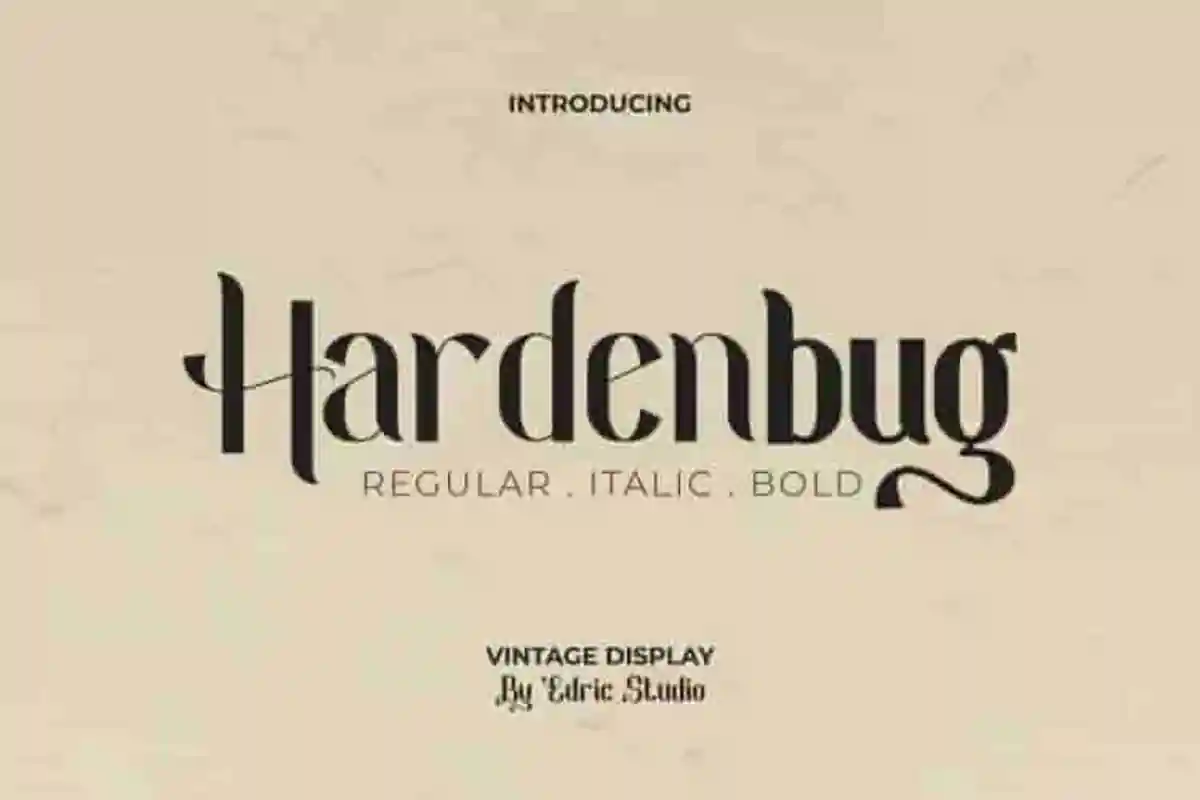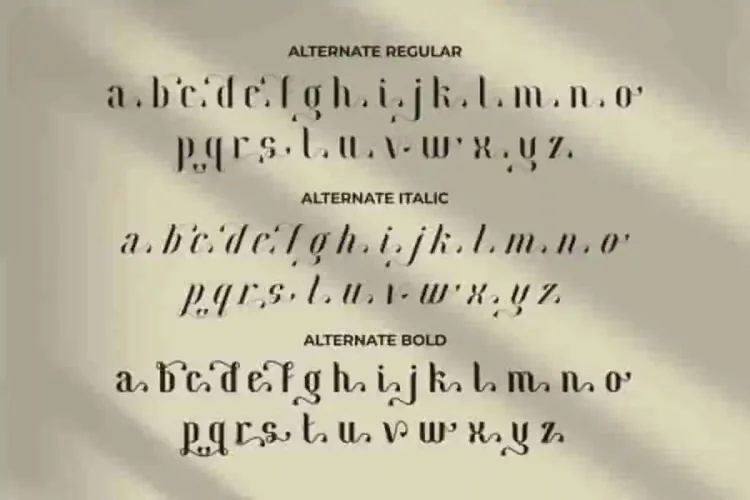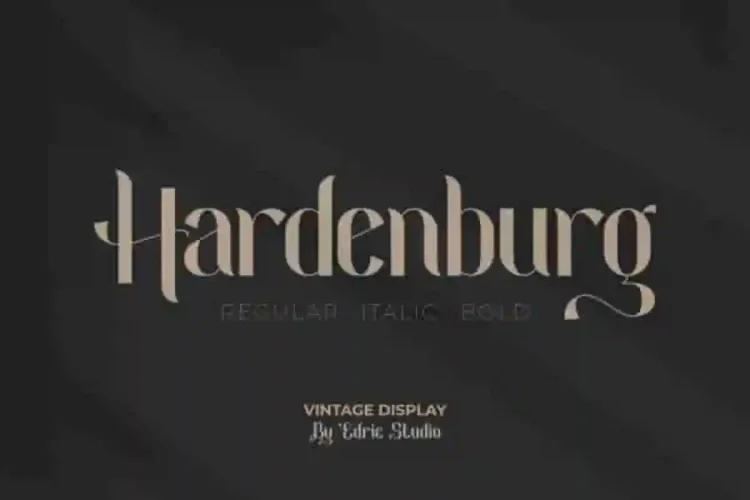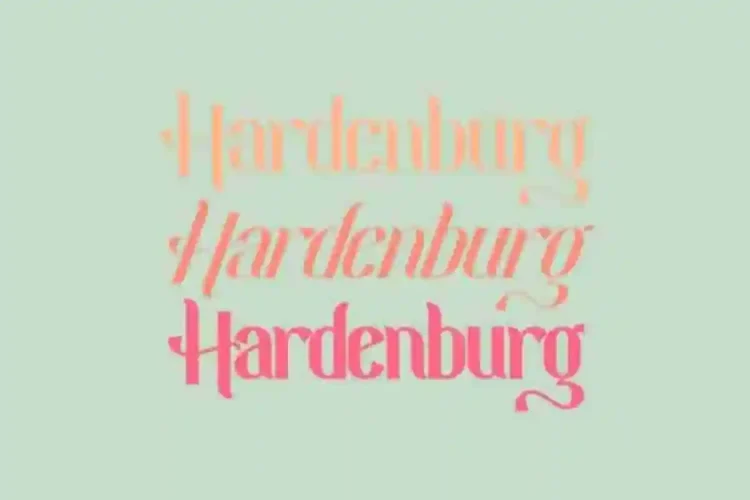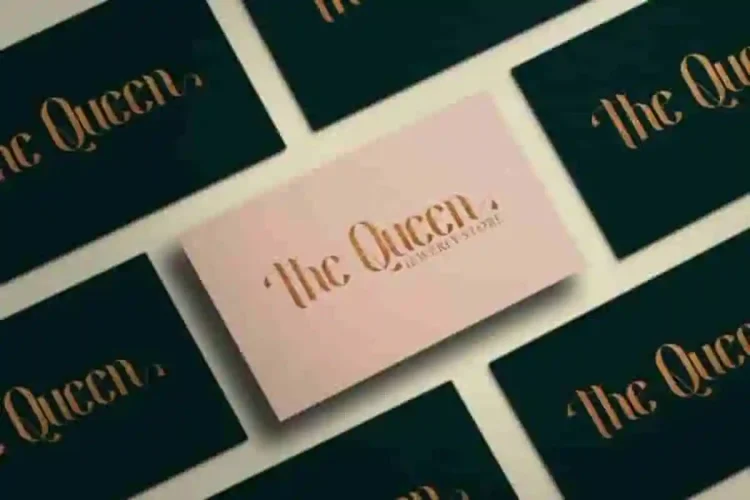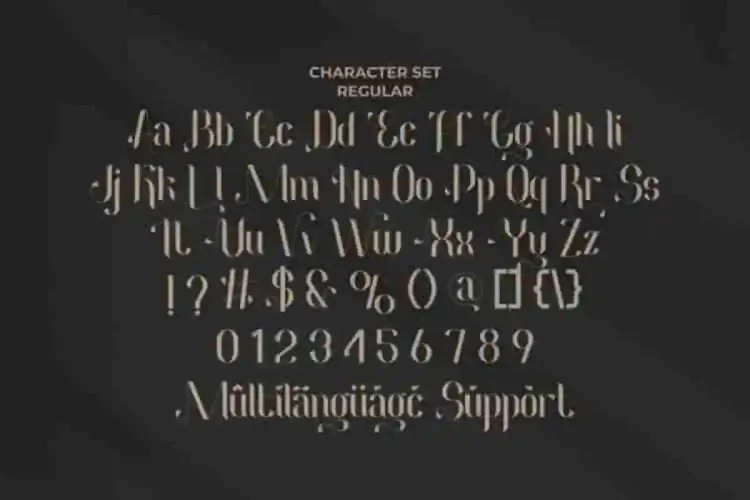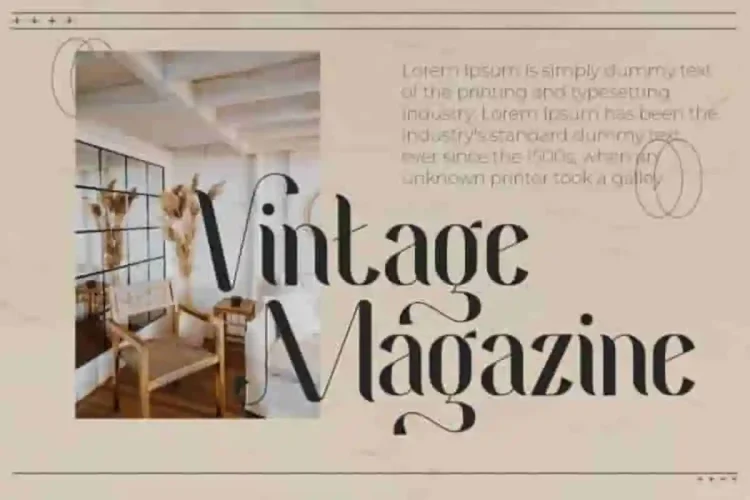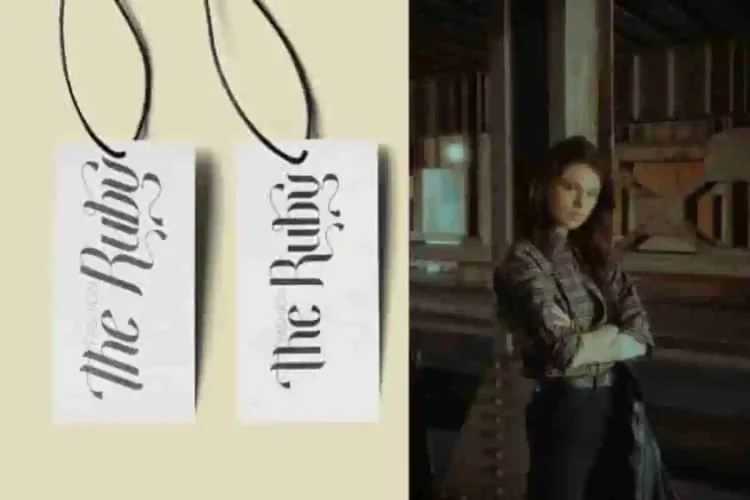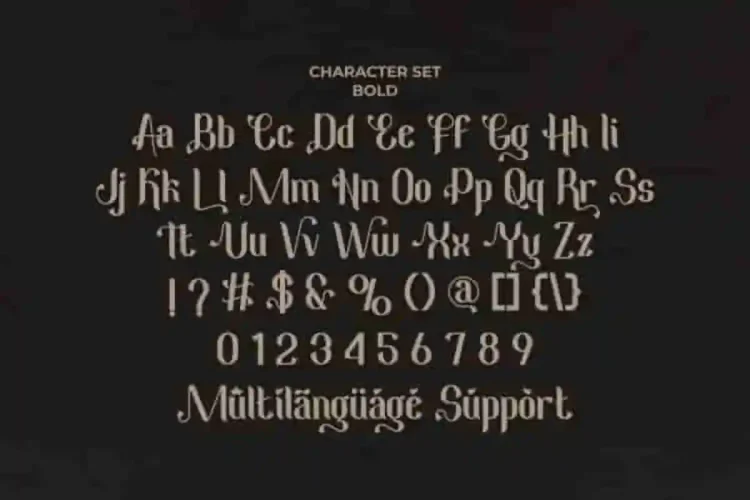
Hardenburg Grunge Modern Font
Hardenburg Grunge Modern Font a sans serif display typeface inspired by Gothic and Medieval design. The font comes with three style options : Regular, Italic and Bold. It has stunning, mysterious, stylish, classic and vintage style. Hardenburg Grunge Modern Font  will be perfect for brandings, advertising, promotions, headlines etc. Hardenburg offers a bold, stylish, and classic look that makes your projects unforgettable.